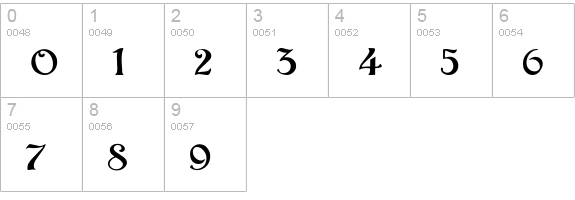
Argos font is a modern and elegant typeface that exudes sophistication and style. With its sleek lines and stylish curves, Argos is perfect for a wide range of design projects, from branding to editorial design. The font features a clean and contemporary look that is sure to make your work stand out. What sets Argos font apart is not only its striking design but also the fact that it is available for free download at FontsMarket.com. This means that you can access this high-quality font without any cost, making it a valuable asset for any designer looking to elevate their work without breaking the bank. Whether you're working on a logo, website, or print design, Argos font offers versatility and flair that will help you achieve your creative vision. Download Argos font today and take your designs to the next level with this stunning typeface that is both modern and timeless.